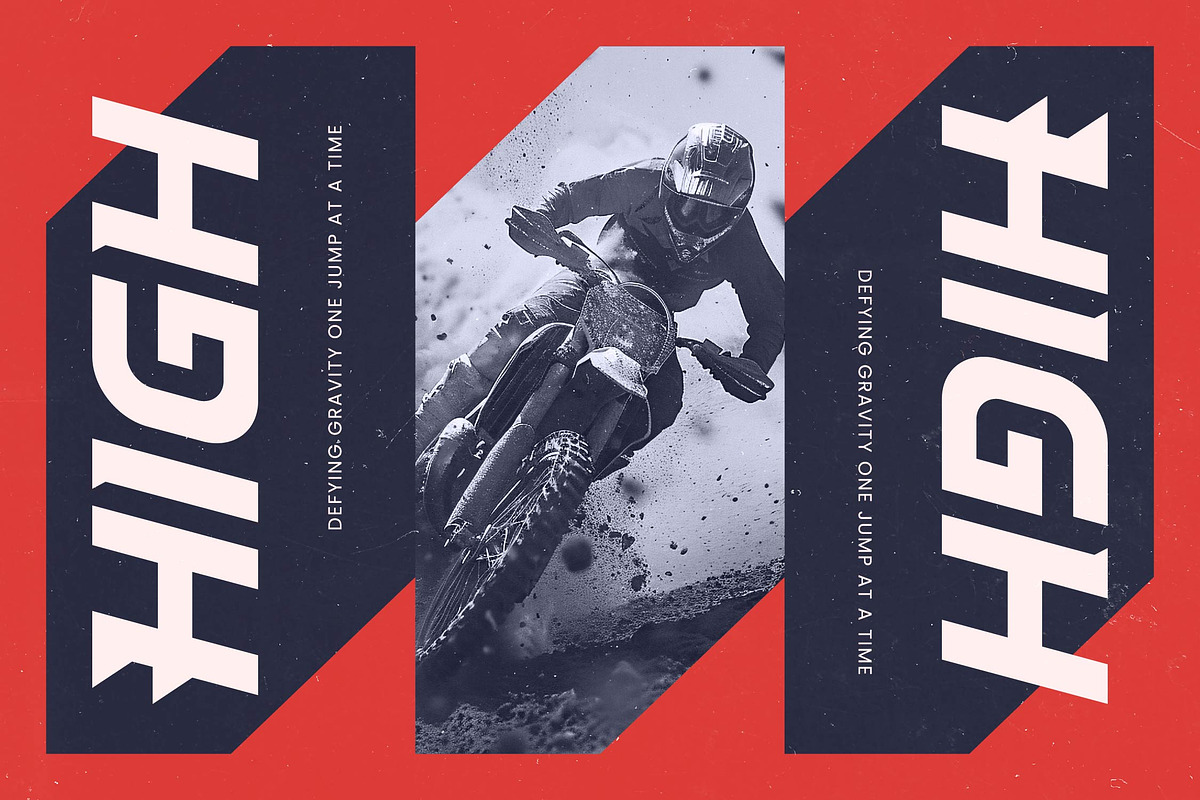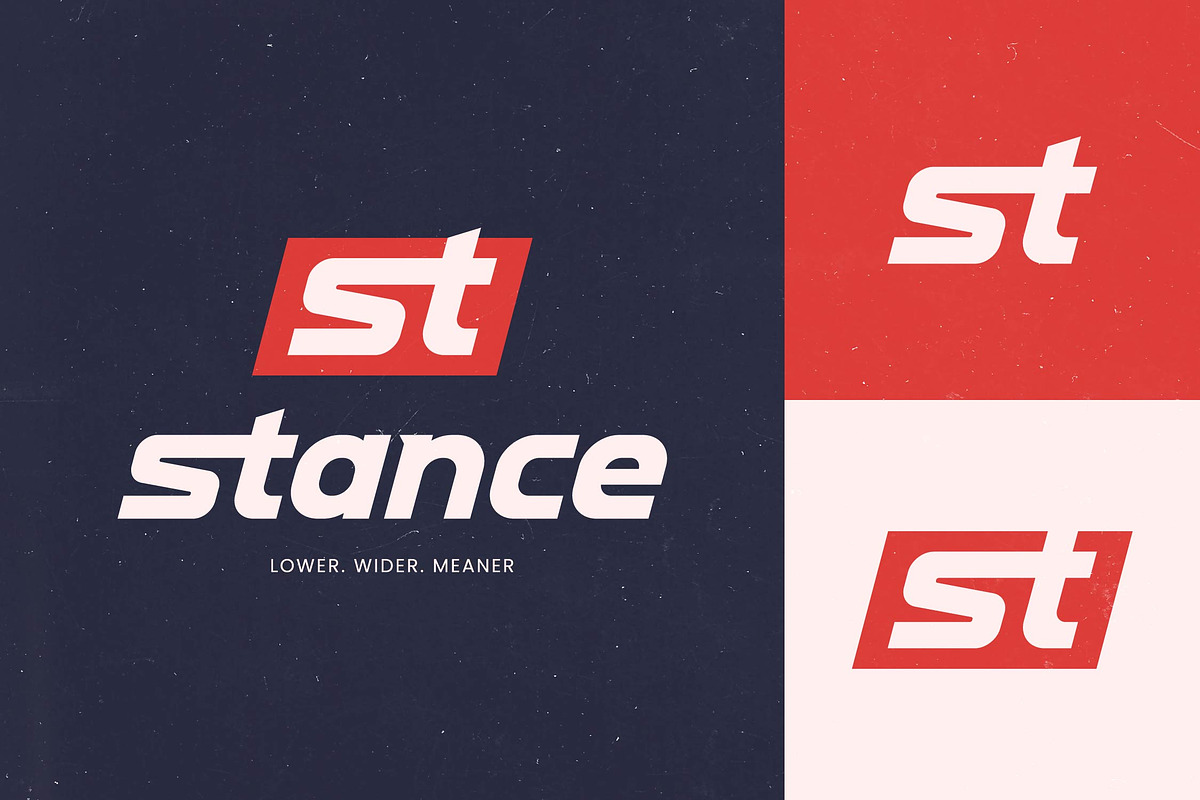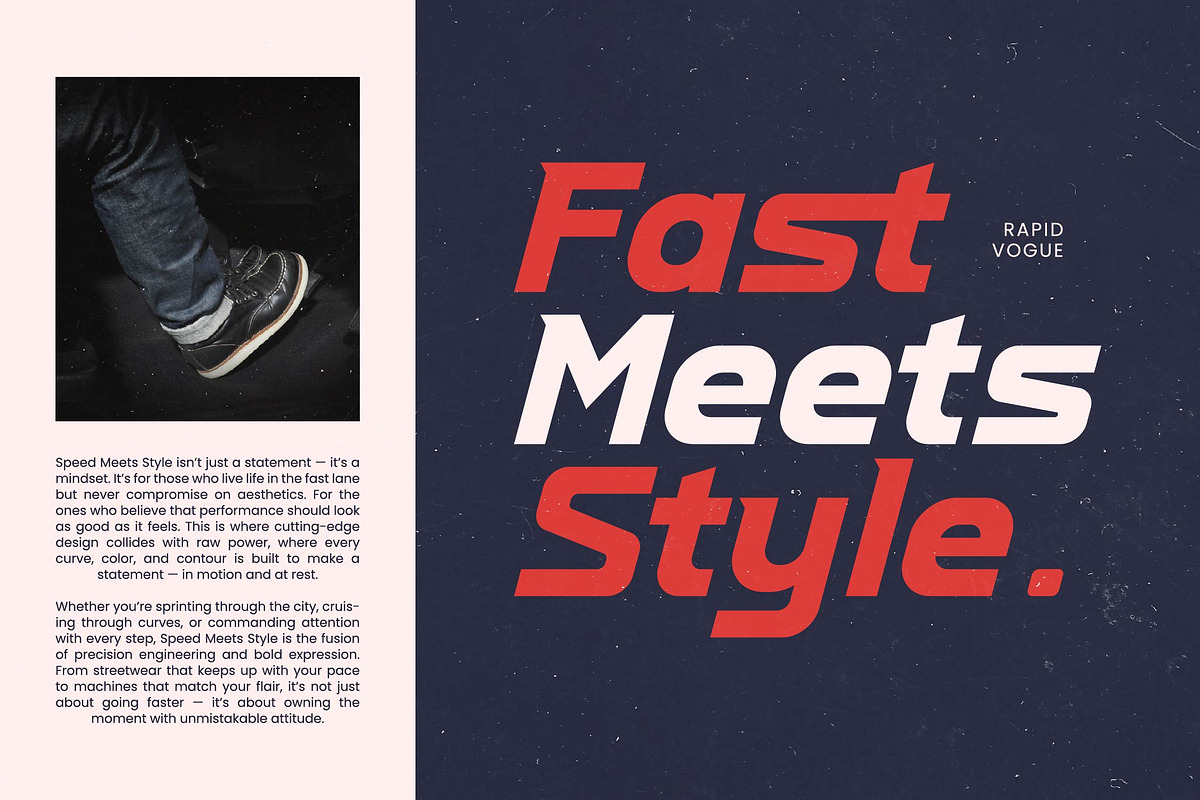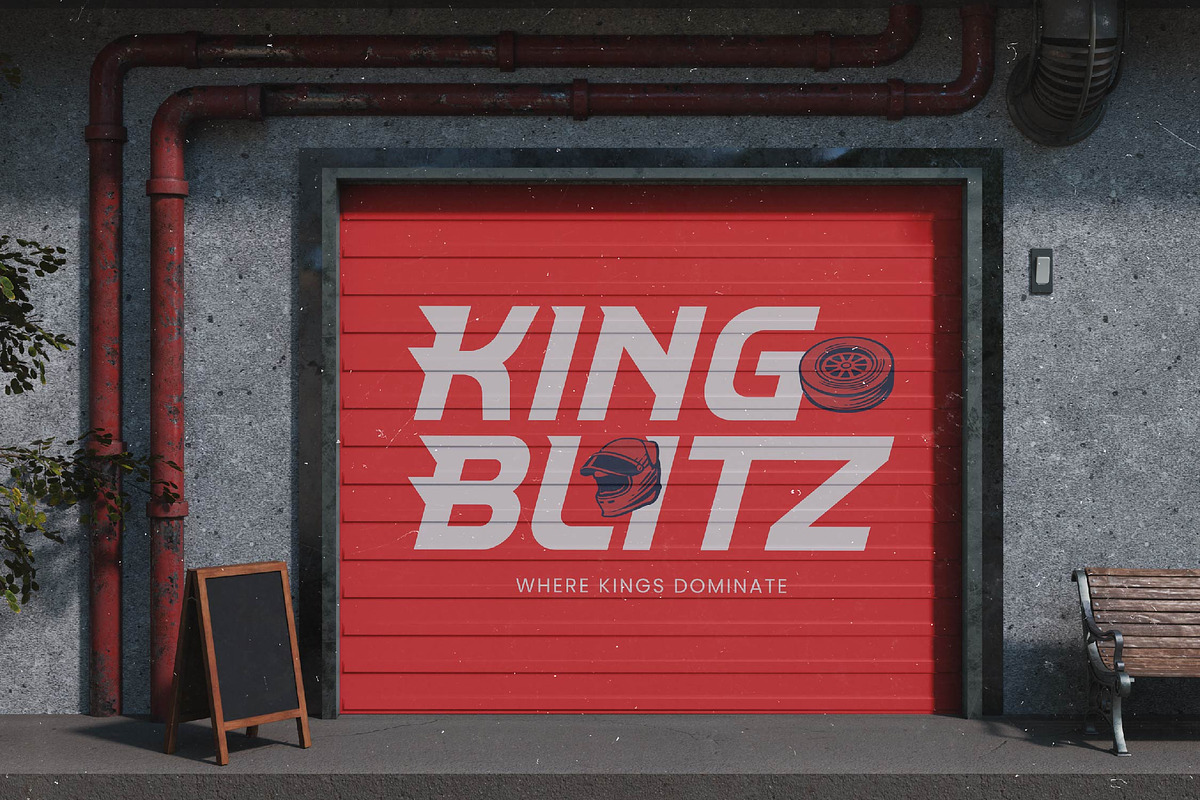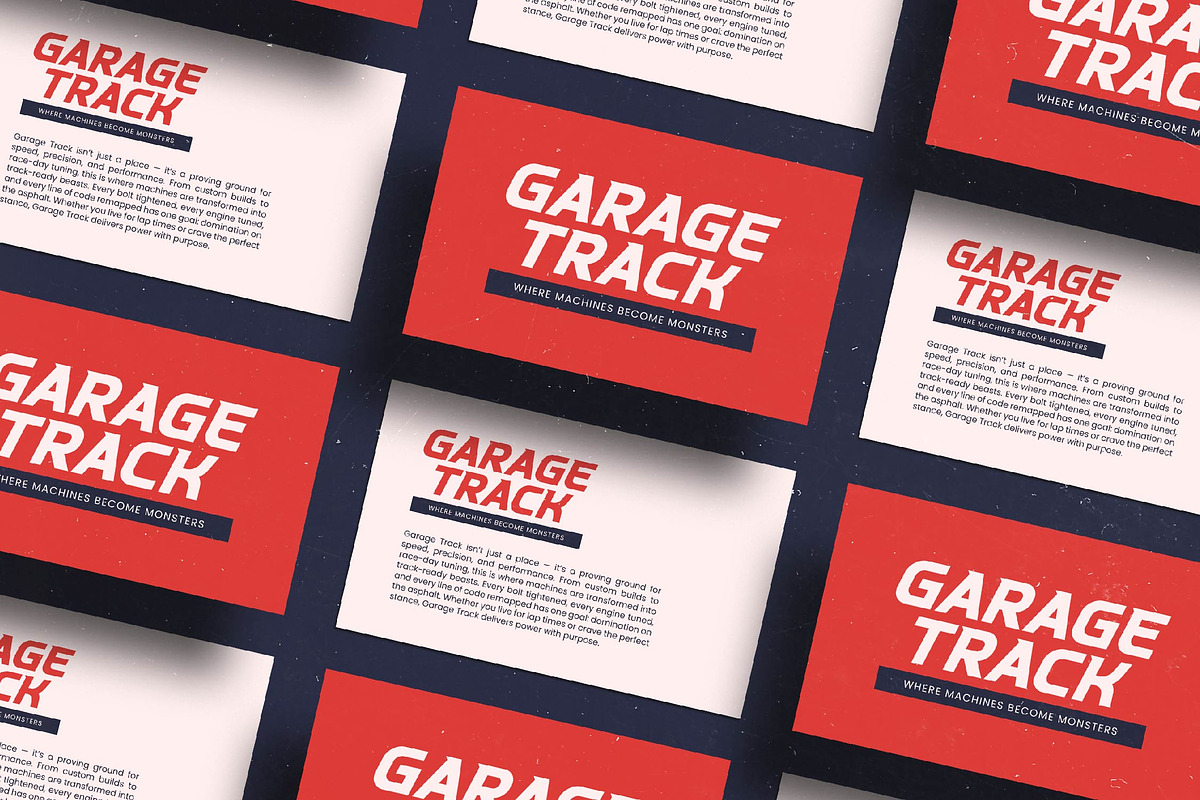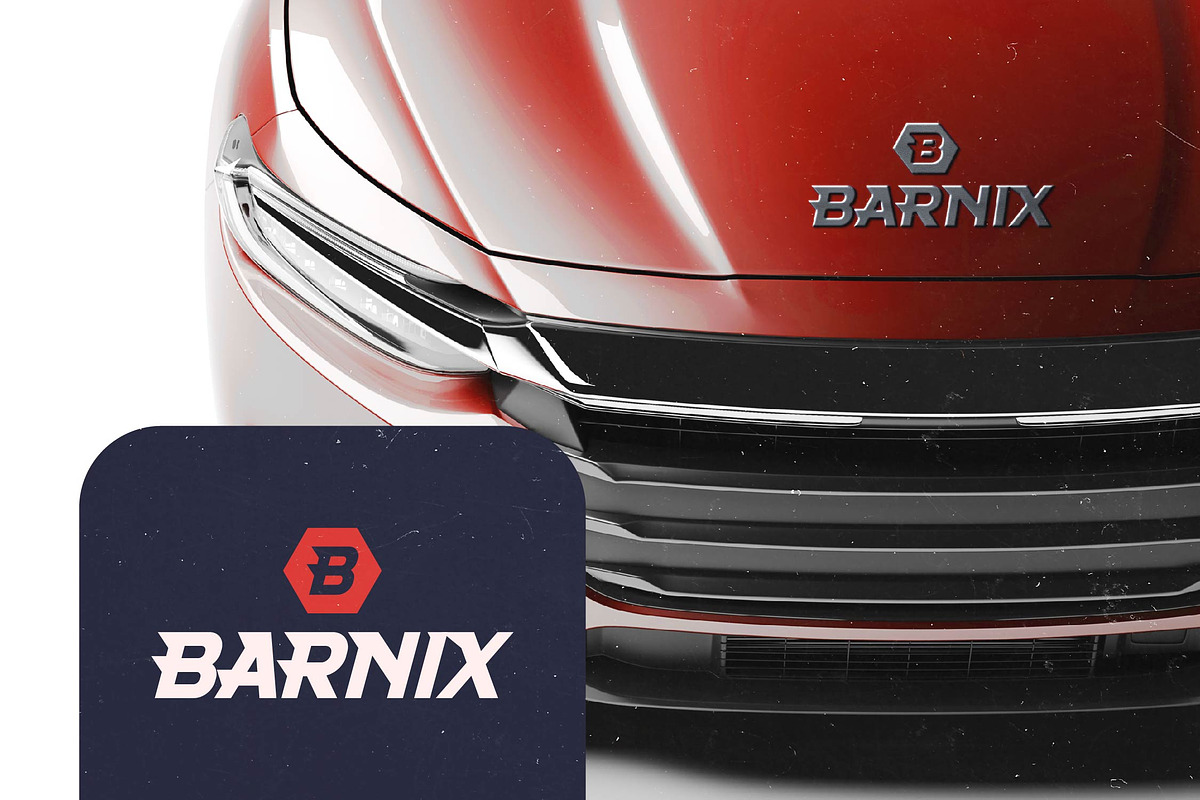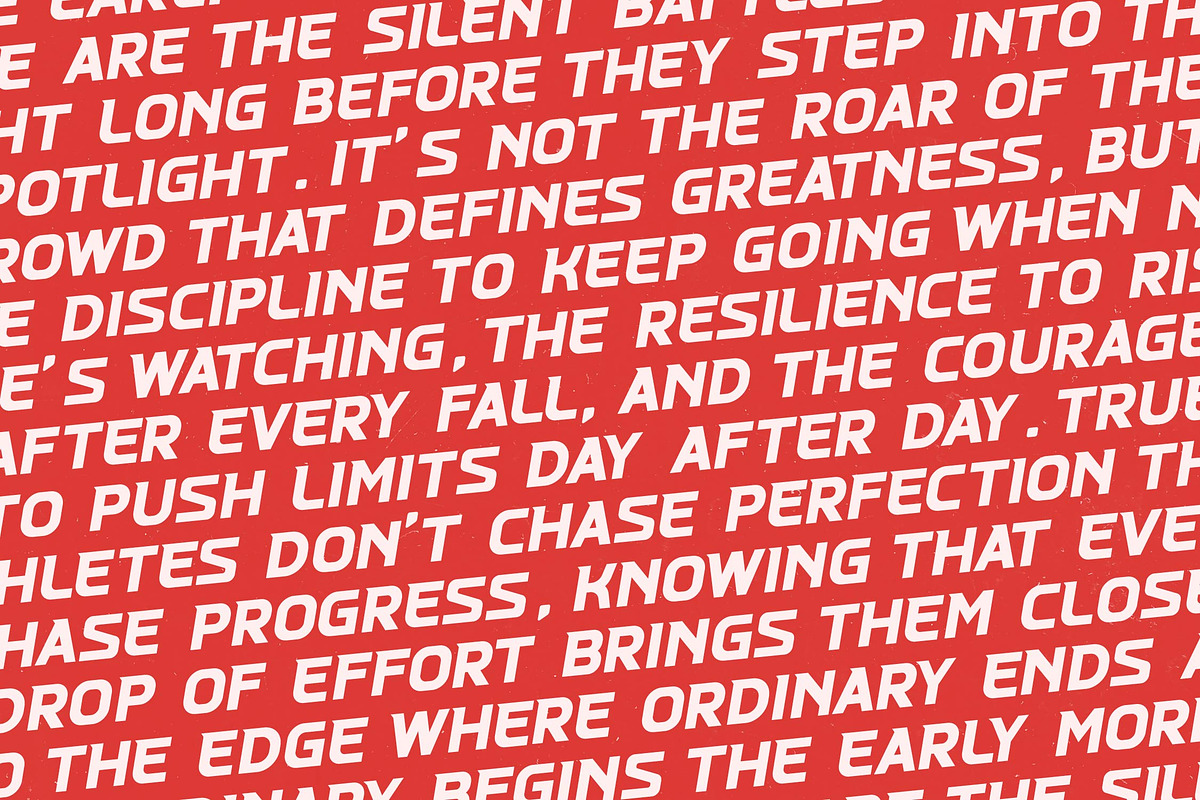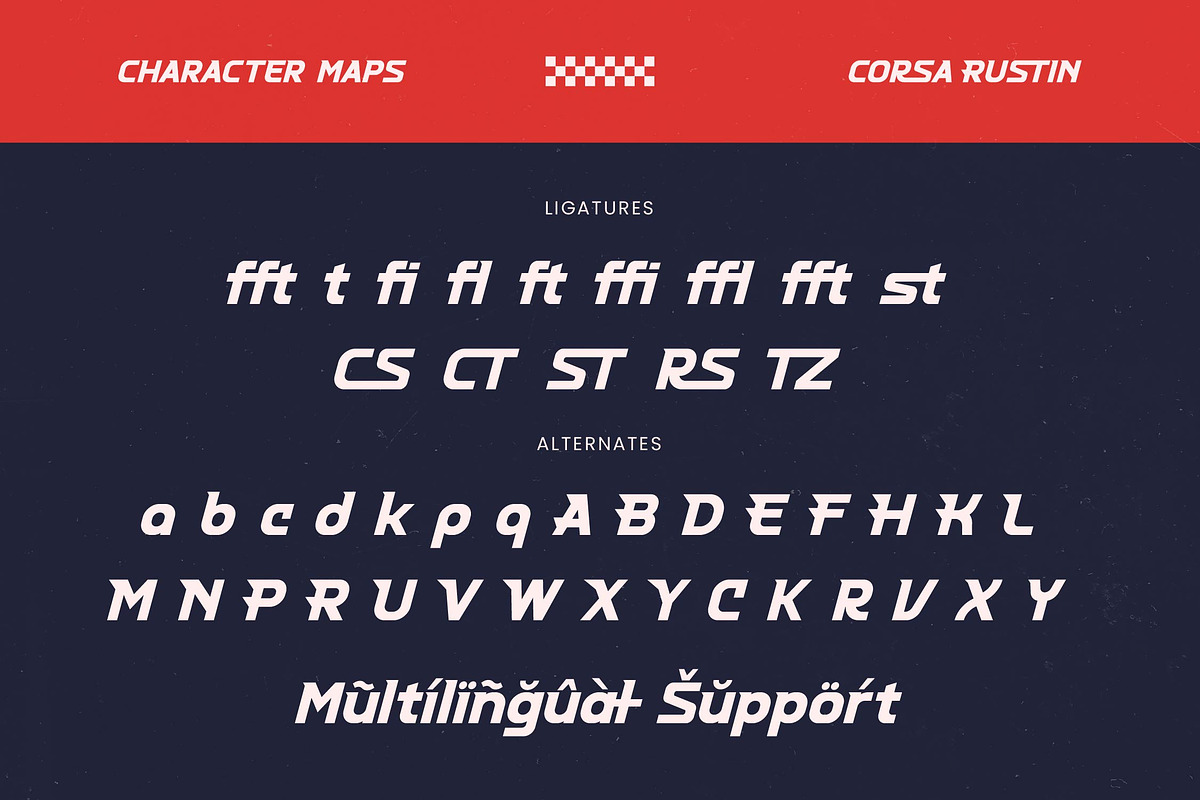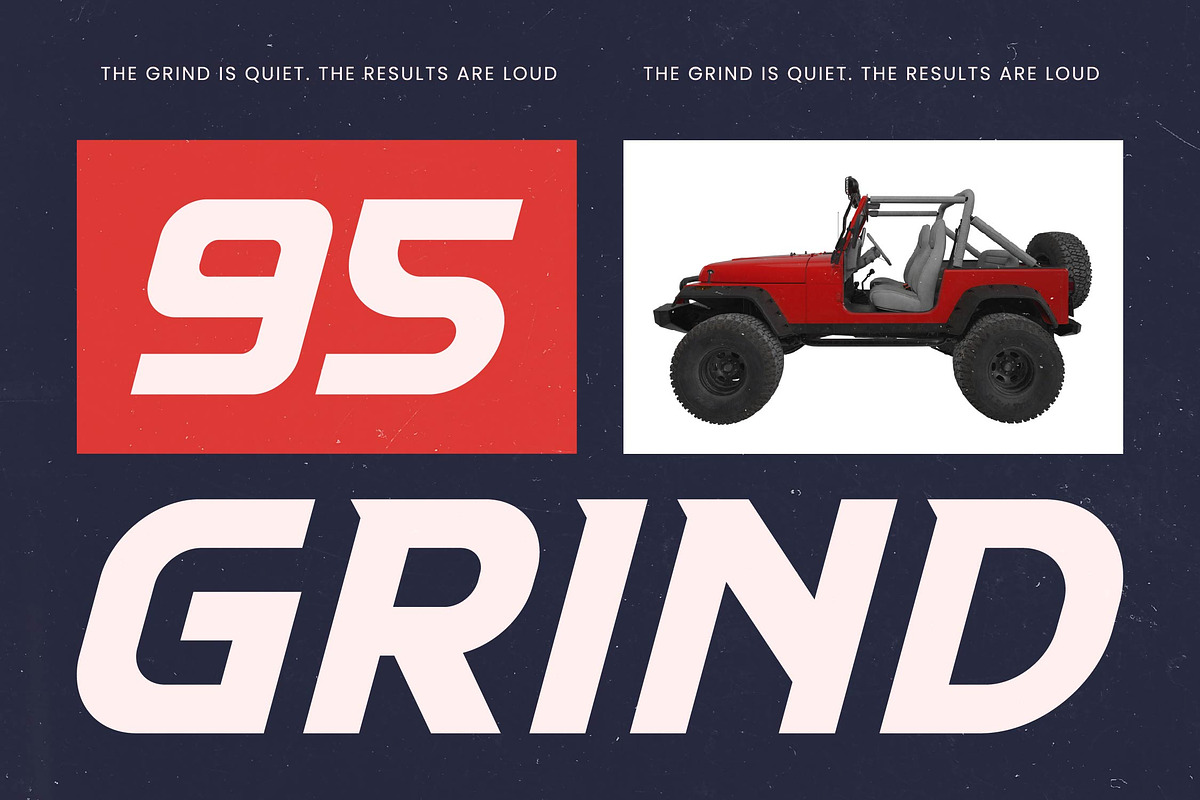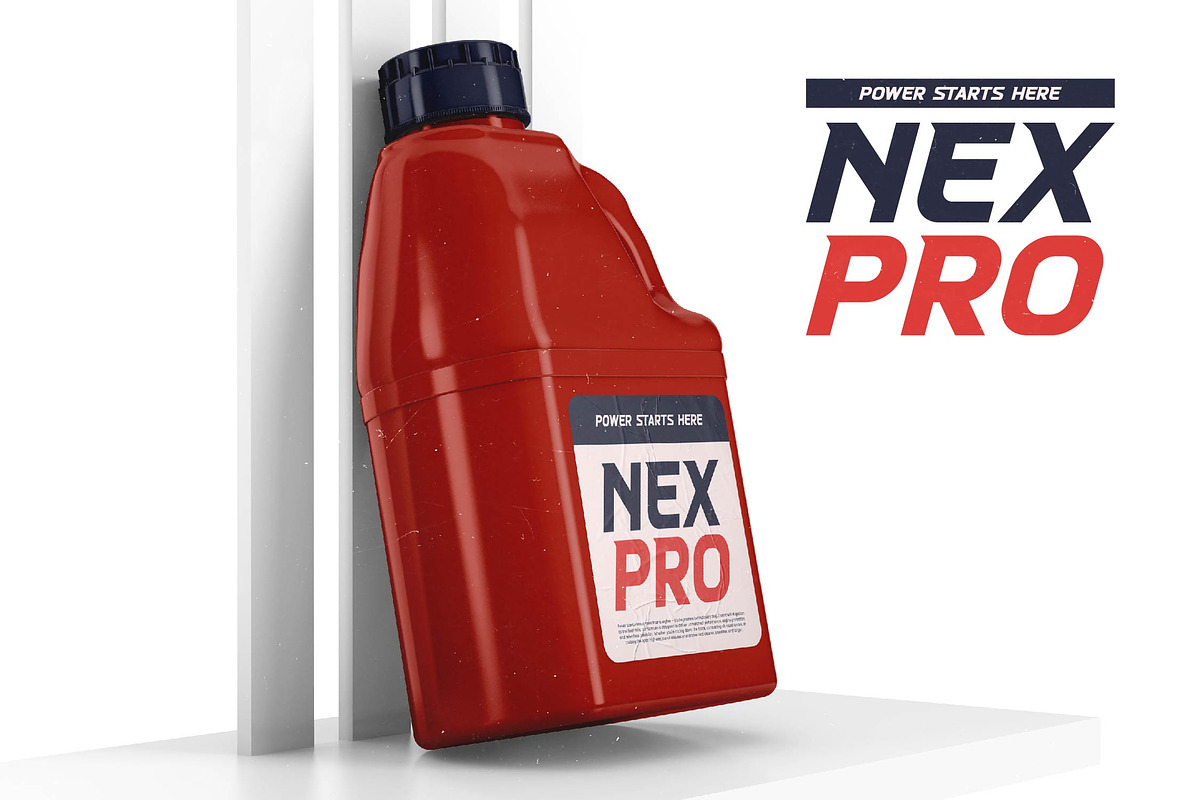
Corsa Rustin Futuristic Sport Font
Unleash the raw power of speed and precision with the electrifying presence of Corsa Rustin. This typeface captures the essence of the finish line, blending high-velocity energy with a sleek, contemporary aesthetic.
Inspired by the aerodynamics of high-performance supercars and the neon-lit tracks of futuristic racing circuits, this font was crafted to embody movement. Its forward-leaning posture and sharp, angular terminals reflect the relentless pursuit of the next horizon.
Delivering a heavy-hitting modern display typography style, this font is engineered for maximum branding impact. It radiates a sense of high-impact display power that is perfect for projects requiring a sense of urgency and luxury typography within the tech and automotive sectors.
As the modern display trend shifts toward more aggressive and technical aesthetics, this typeface leads the pack among athletic display fonts. It utilizes character-driven typography to stand out in a saturated market, offering a unique visual voice for the digital age.
This versatile powerhouse is the ultimate choice for logo design, high-octane branding, and professional editorial layouts. Whether you are working on packaging for tech gear, e-sports team identities, or automotive marketing campaigns, it ensures your message is delivered at full throttle.
The package includes a comprehensive set of ligatures and alternates to provide endless creative combinations for your designs. With full multilingual support and international characters, it is ready to take your brand to a global audience across all platforms.